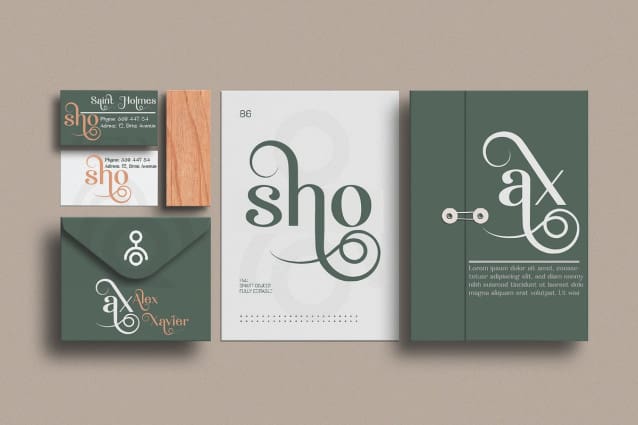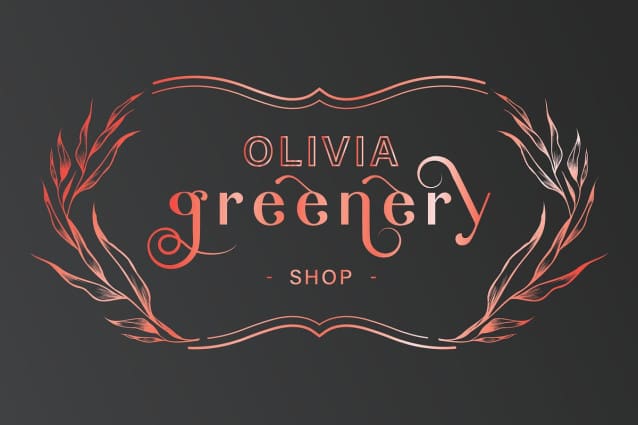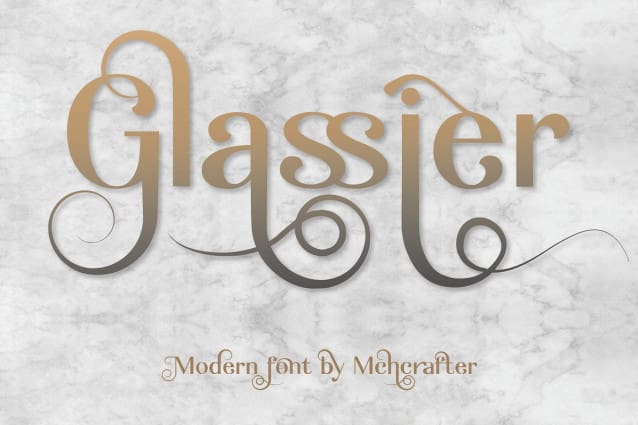
Glassier Font
Glassier Font is a bold and uniquely designed sans serif font. It is PUA encoded which means you can access all of the glyphs and swashes with ease!
Add it confidently to your projects, and you will love the results.